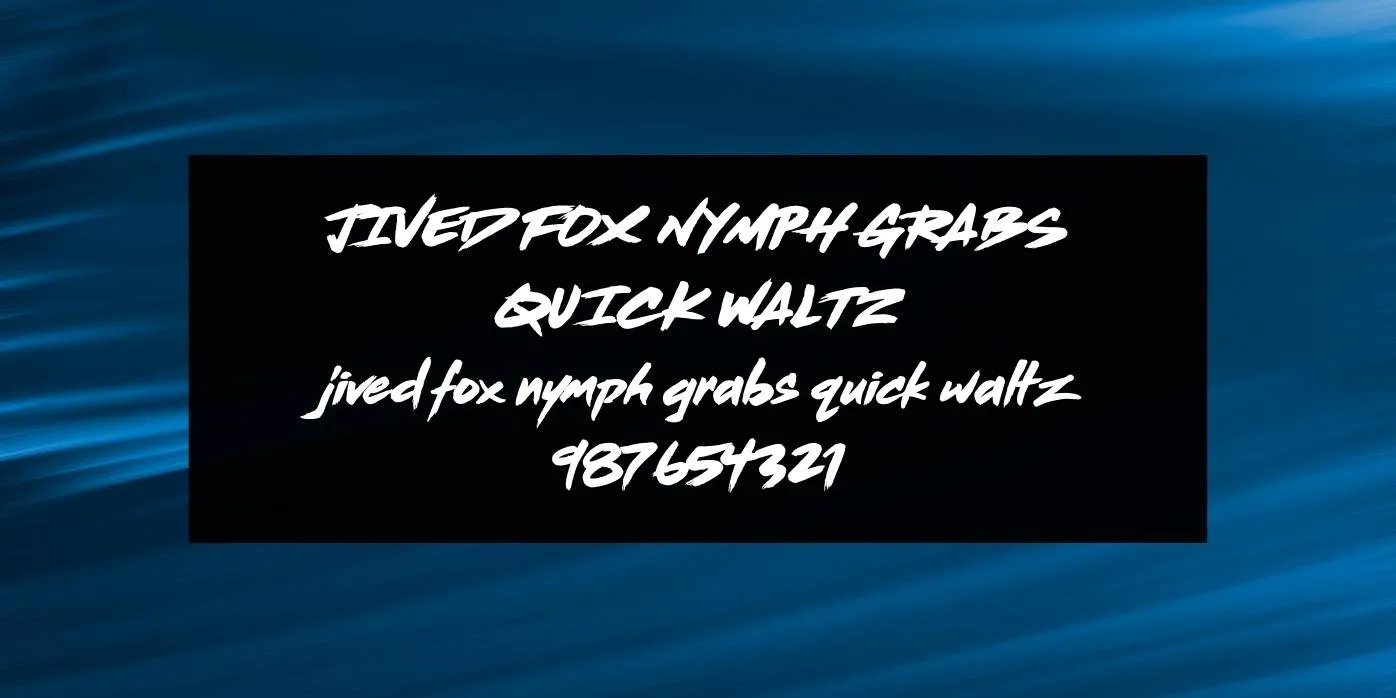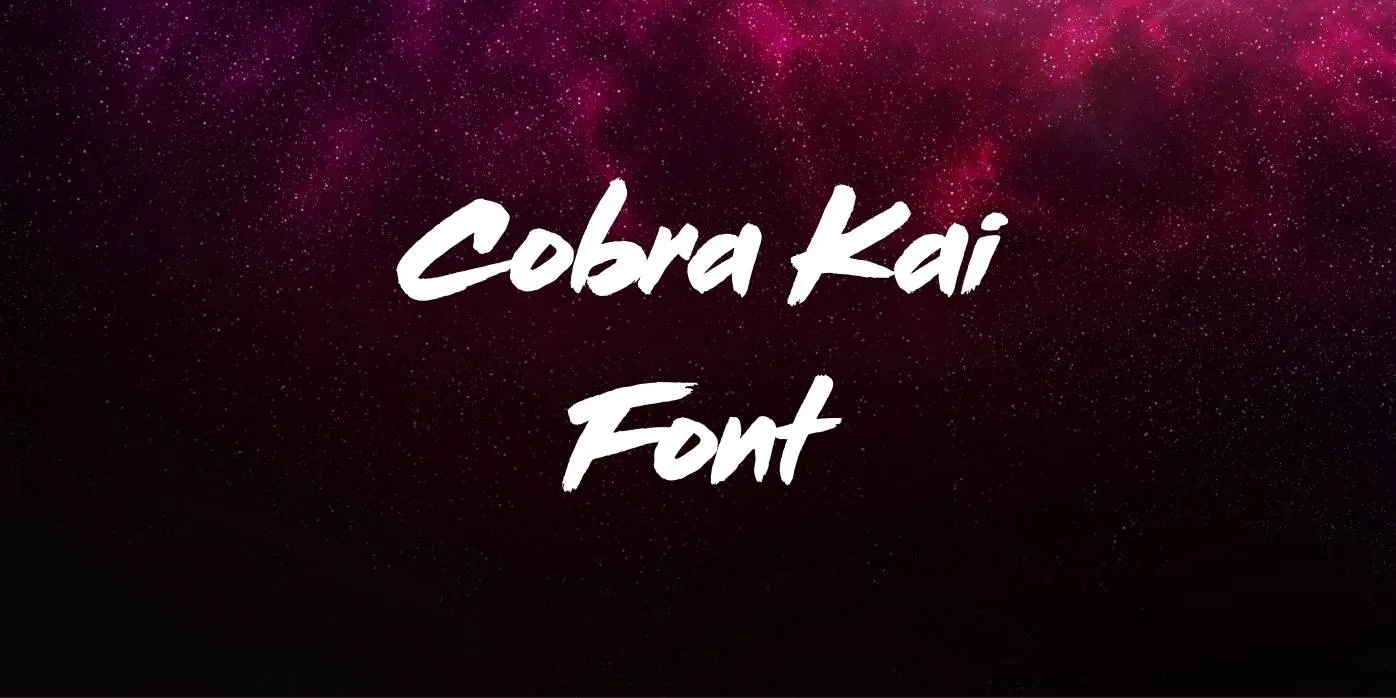
Cobra Kai Font
Cobra Kai Font is based on the title logo from the Karate Kid movies and TV series. The font is a modified version of ITC Avant Garde Gothic. This font style has been used extensively in both movies and TV series. The glyph of this font –∞—ï been modified to give it a more script look, and the horizontal strokes have been thickened.
If you want to pair the typeface and gain much more effect on your designs then use Aquawax Font in your practical designs. The result is a font that looks like it was written with a brush or felt tip pen. This font is also very well-known due to its copy-paste function. This font is perfect for any fan of the Karate Kid movies or TV series.